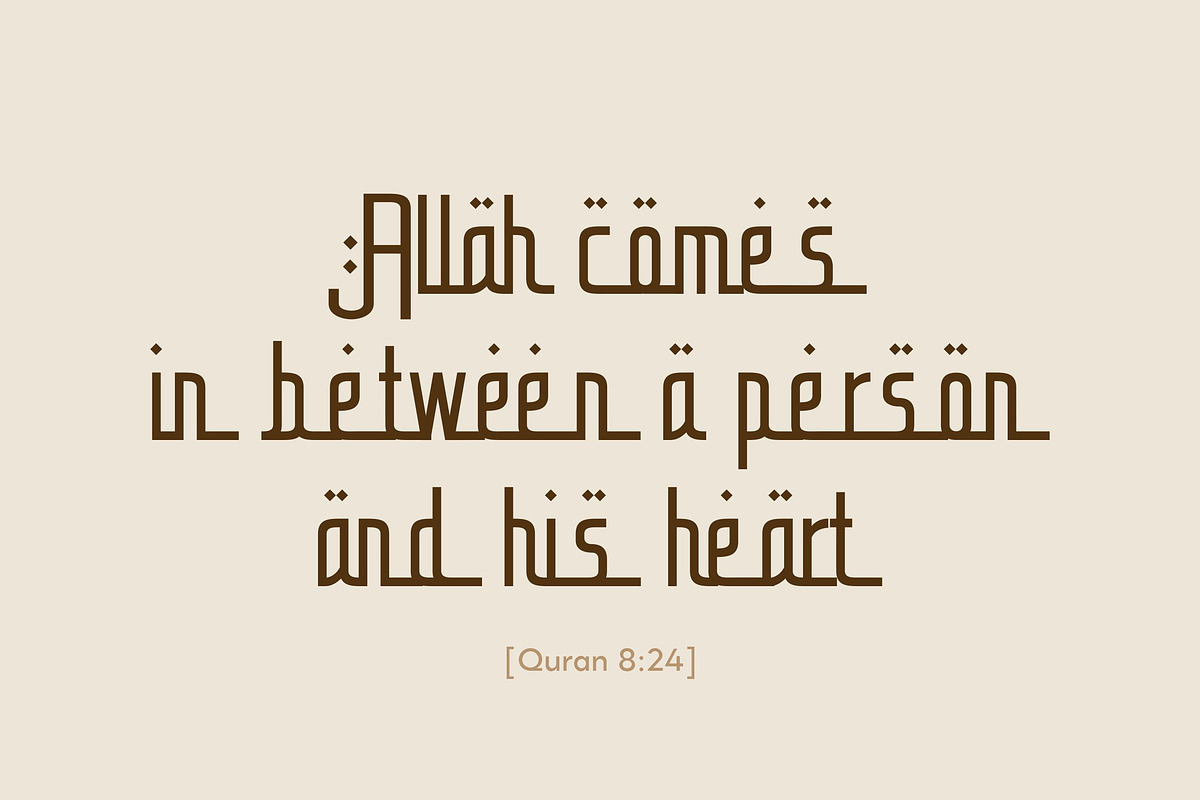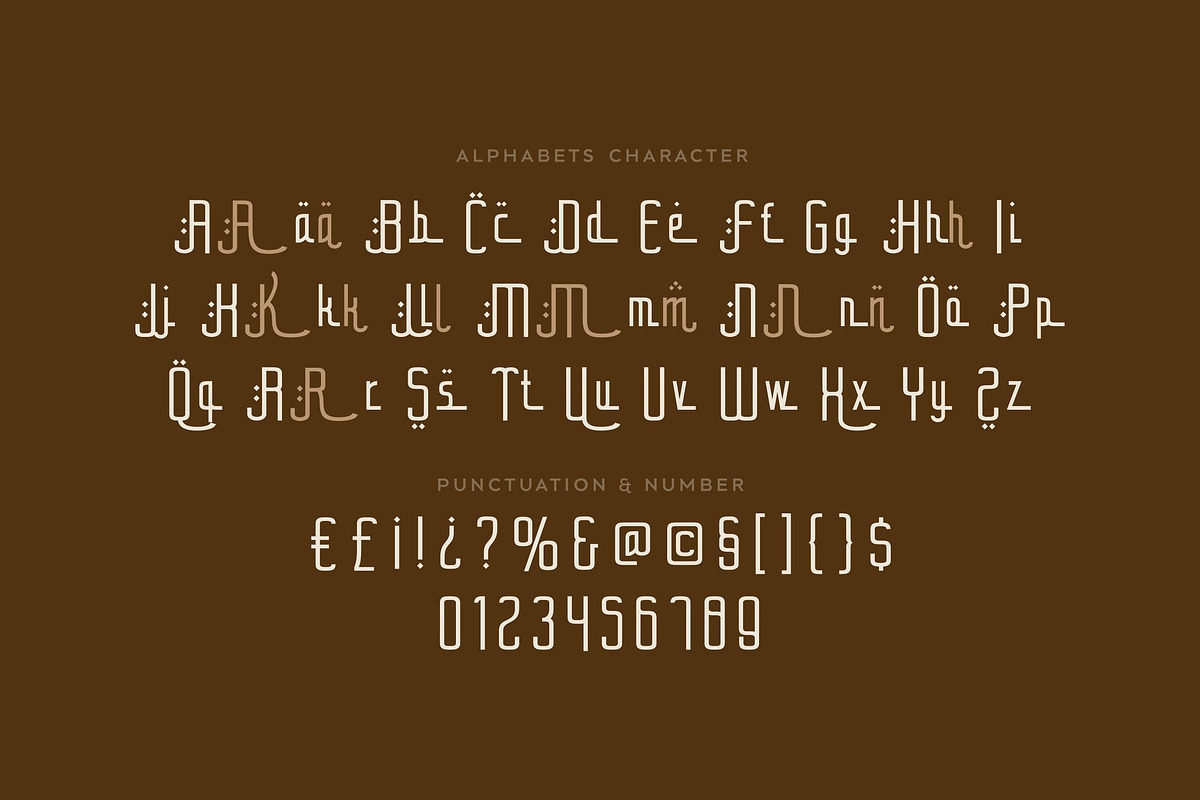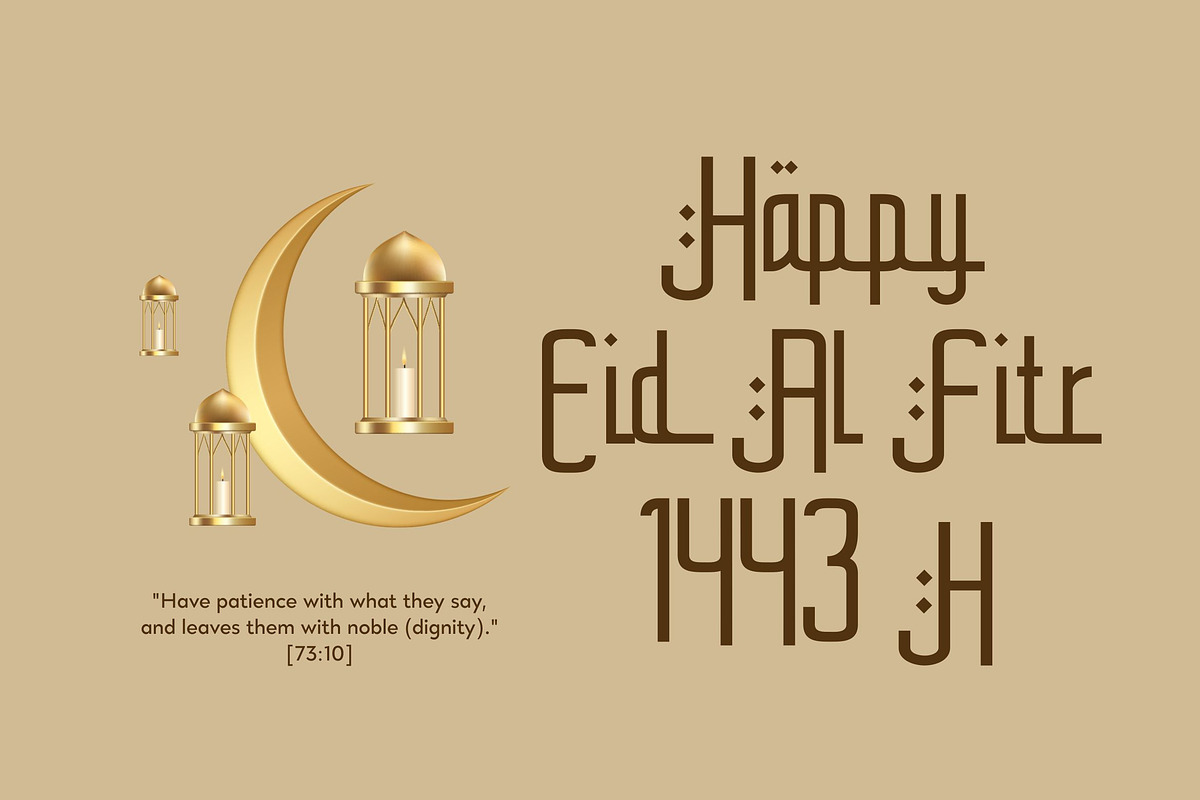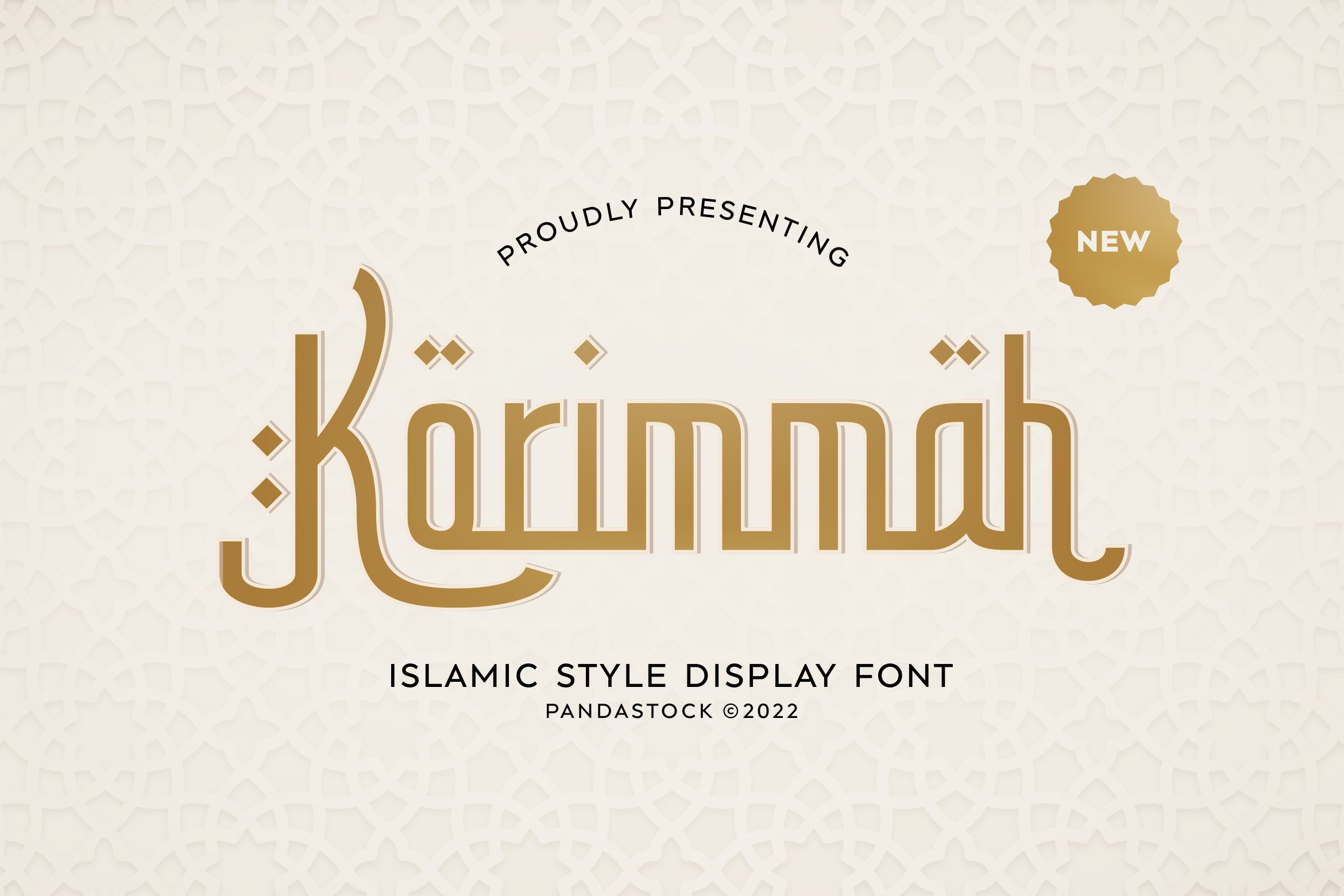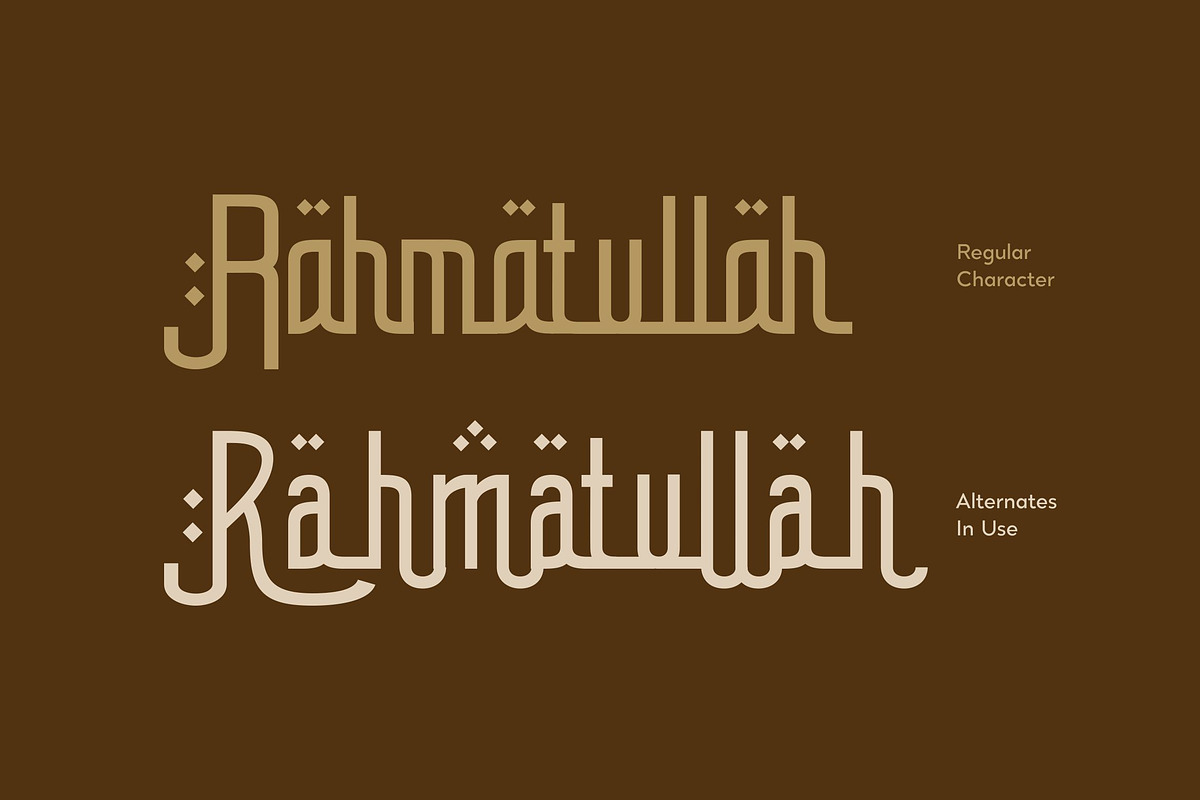
Korimmah - Arabic Style Typeface
Korimmah is a Arabic style typeface with visual elegance, smooth curves, and beautiful ligatures clear, making your work look true and attractive.
A versatile font that works in both large and small sizes. This font is suitable for a wide variety of projects such as invitations, logos, branding, magazine, social media post or story, cards, product packaging, mugs, quotes, poster, labels, signatures, websites, and more.
- Punctuation, Number, and Symbol
- Multilingual Support ÀÁÂÃÄÅÆÇÈÉÊËÌÍÎÏÐÑÒÓÔÕÖØÙÚÛÜÝ